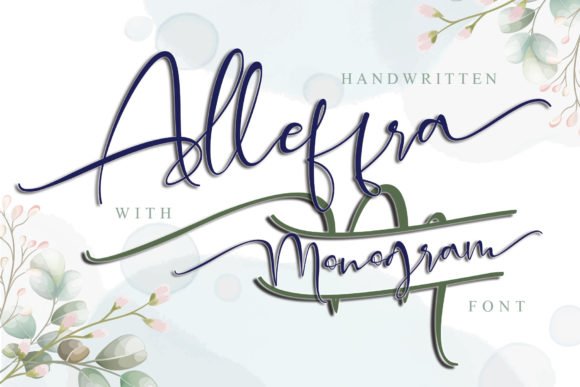
When Words Become Art: Discovering the Magic of Alleffra Font
Have you ever sat at your desk, staring at a blank page, waiting for the perfect words to flow? For designers, this moment is a daily ritual, a test of creativity and patience. It’s in these moments that the right font can make all the difference, transforming a simple message into a work of art.
Enter the Alleffra Font, a modern and sweet handwritten font that’s about to become your new best friend. With its authentic feel and versatility, this font is perfect for creating stunning designs that capture attention and evoke emotions. Whether you’re crafting wedding invitations, designing social media posts, or creating beautiful stationery, the Alleffra Font is the perfect companion for your creative journey.
As a valuable asset for designers, the Alleffra Font offers a range of benefits, from its PUA encoded features to its stunning alternates and smooth lines. With the Alleffra Font, you’ll be able to bring your designs to life with ease and precision, making it an essential tool for any creative project.
Alleffra Font Key Features
- Font Family: Alleffra is a unique, hand-drawn font family that offers a range of styles, including bold, regular, and italic.
- Character Set: Includes a comprehensive set of characters, including Latin, Cyrillic, and Greek alphabets, as well as punctuation and symbols.
- Unique Characteristics: Alleffra’s distinctive, hand-drawn style features intricate details and flourishes, making it ideal for creative and artistic applications.
Alleffra Font Review
Overall, I think Alleffra is a unique and stylish font that can add a touch of elegance to any design. ✨ The curved lines and smooth shapes give it a sense of sophistication, making it perfect for branding and packaging design. ✨ The font’s versatility also makes it suitable for a wide range of industries, from fashion to healthcare.
Here are some specific things that I think work well with Alleffra:
- Its refined and intricate details ✨
- Highly legible even at small font sizes ✨
- Well-suited for both digital and print media ✨
However, I do have a few concerns:
- It may be too ornate for some designs, which could make it difficult to read ⚠️
- The font is not suitable for large blocks of text ⚠️
- Lack of bold and italic styles, which may limit its use in certain contexts ⚠️
Overall, I think Alleffra is a beautiful font that can add a touch of sophistication to any design. However, it’s essential to use it judiciously and consider its limitations before committing to it.
Tips for Getting the Most Out of Alleffra Font
Alleffra Font is a versatile font that works well for headings, titles, and body text. To get the most out of it, try pairing it with bold or italic variations for added emphasis. You can also experiment with different font sizes and line heights to create a visually appealing design.
Alleffra Font is commonly used for creative projects, such as infographics, posters, and social media graphics. It’s also suitable for formal documents, like resumes and business reports, where a professional and elegant font is desired.
Alternatives to Alleffra Font for Designers
Bebas Neue is a modern sans-serif font that is highly legible and versatile. It’s perfect for use in digital products, such as mobile apps, websites, and video games. Bebas Neue has a similar aesthetic to Alleffra Font, but with a more geometric and futuristic feel.
Montserrat is a geometric sans-serif font that is highly legible and modern. It’s ideal for use in urban and industrial settings, such as cityscapes, technology brands, and modern logos. Montserrat has a similar feel to Alleffra Font, but with a more angular and edgy aesthetic.